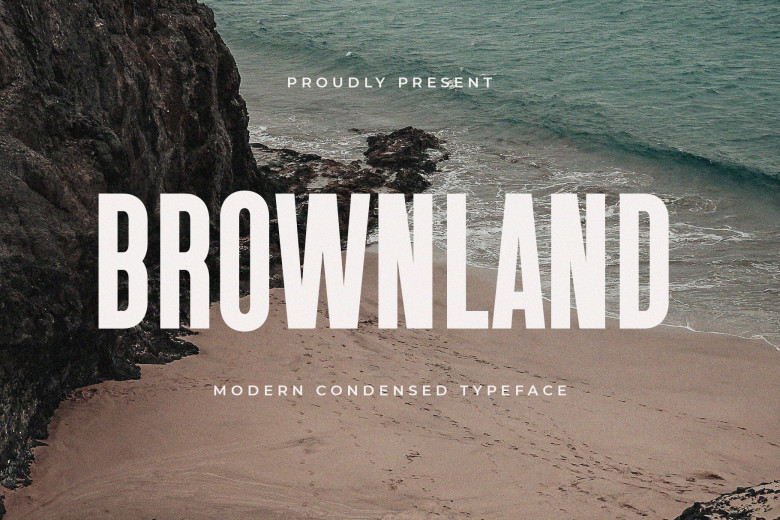
Brownland Font
Brownland is an elegant and modern typeface perfect for logos, headings, branding materials such as magazines or packaging materials, invitations or any project requiring elegance. Brownland features straight curvatures with straight lines that add an air of refinement to each project it graces.
Brownland Sans Serif Font